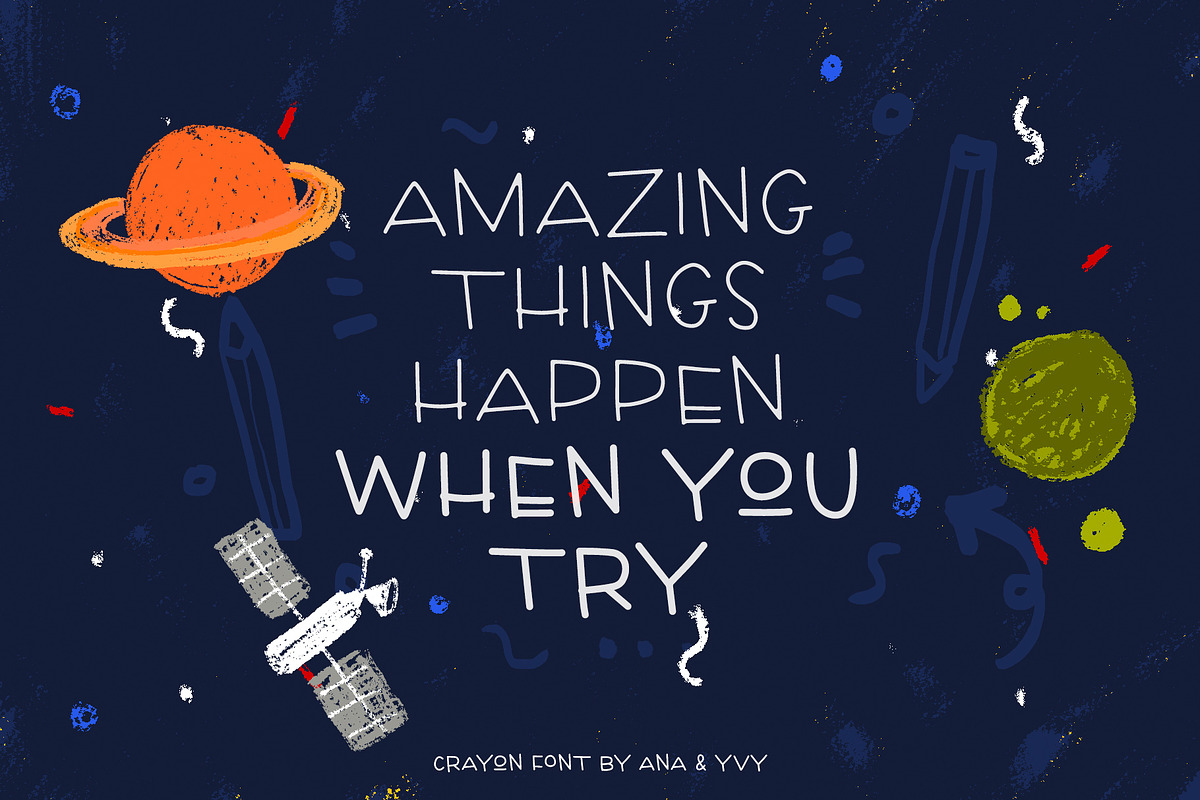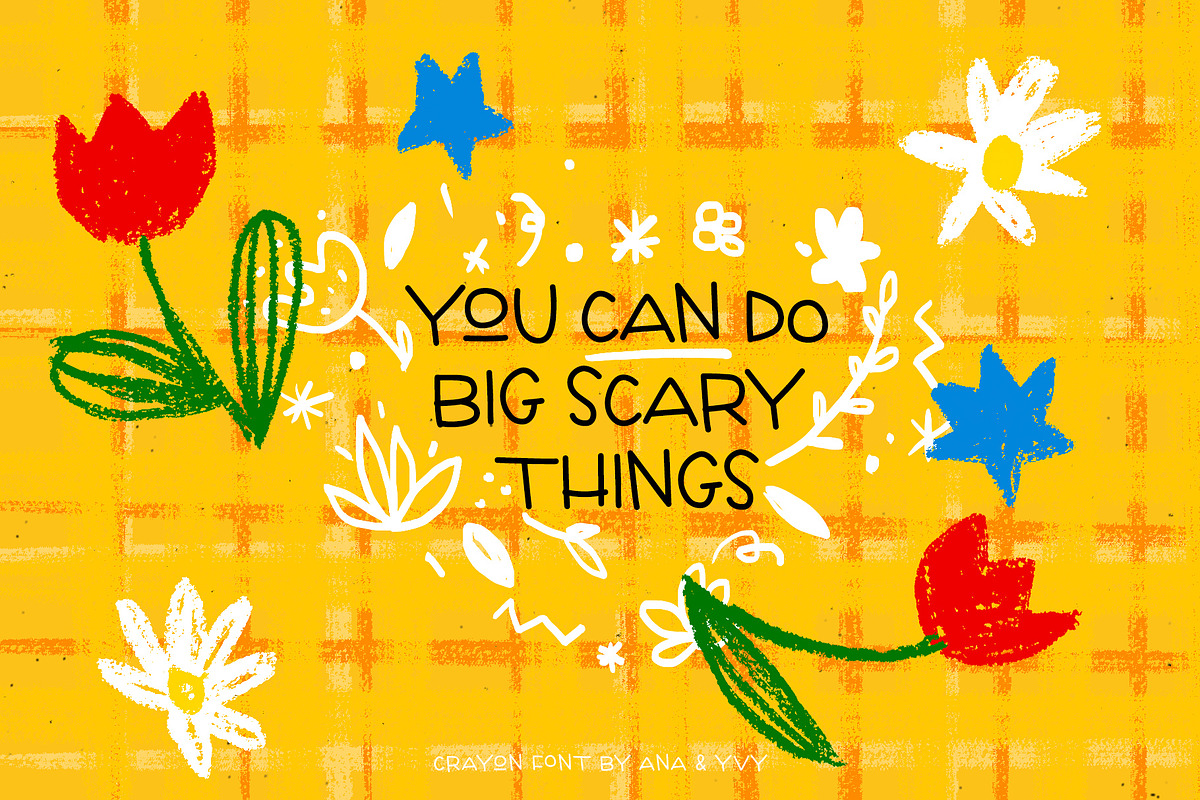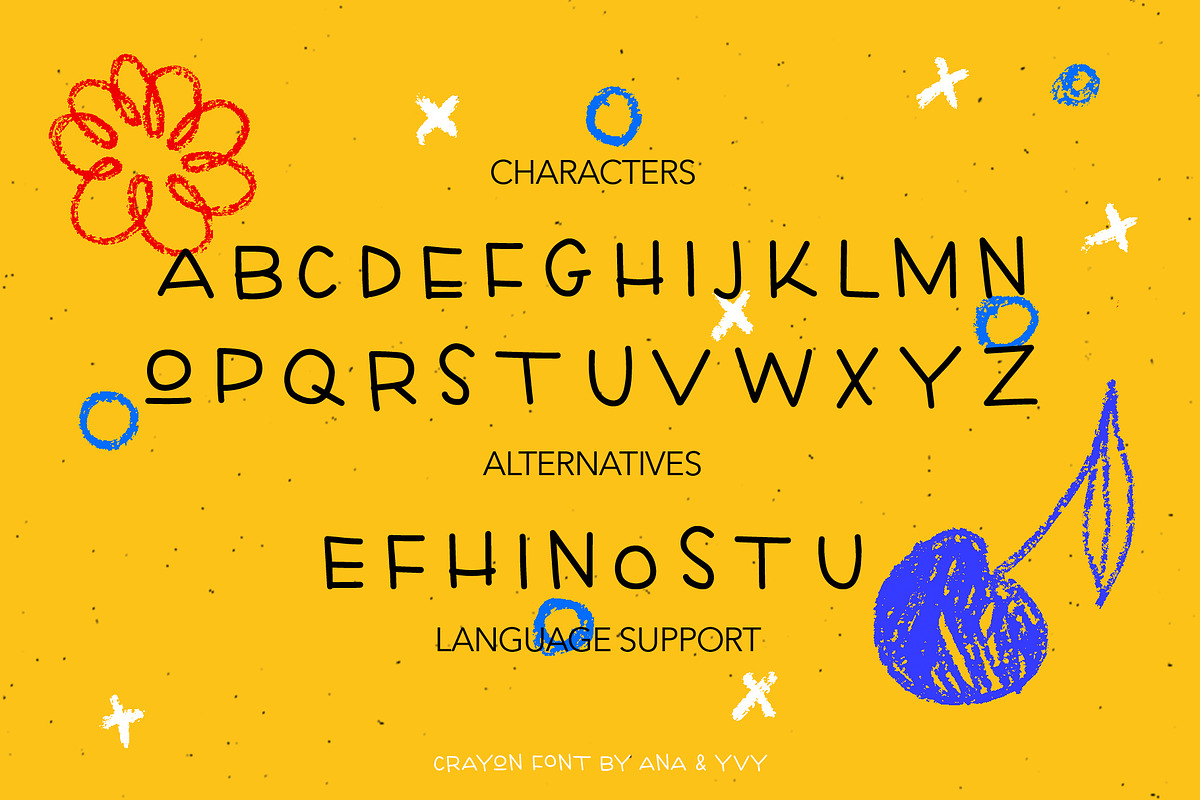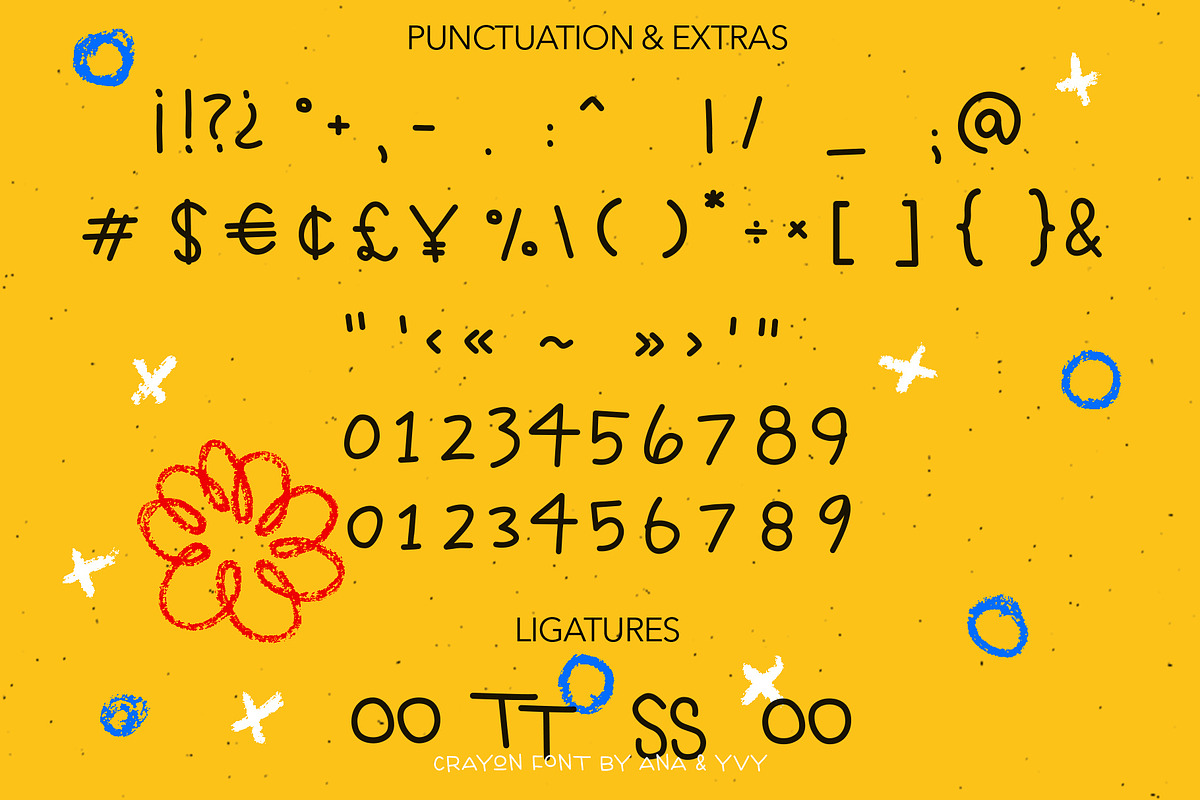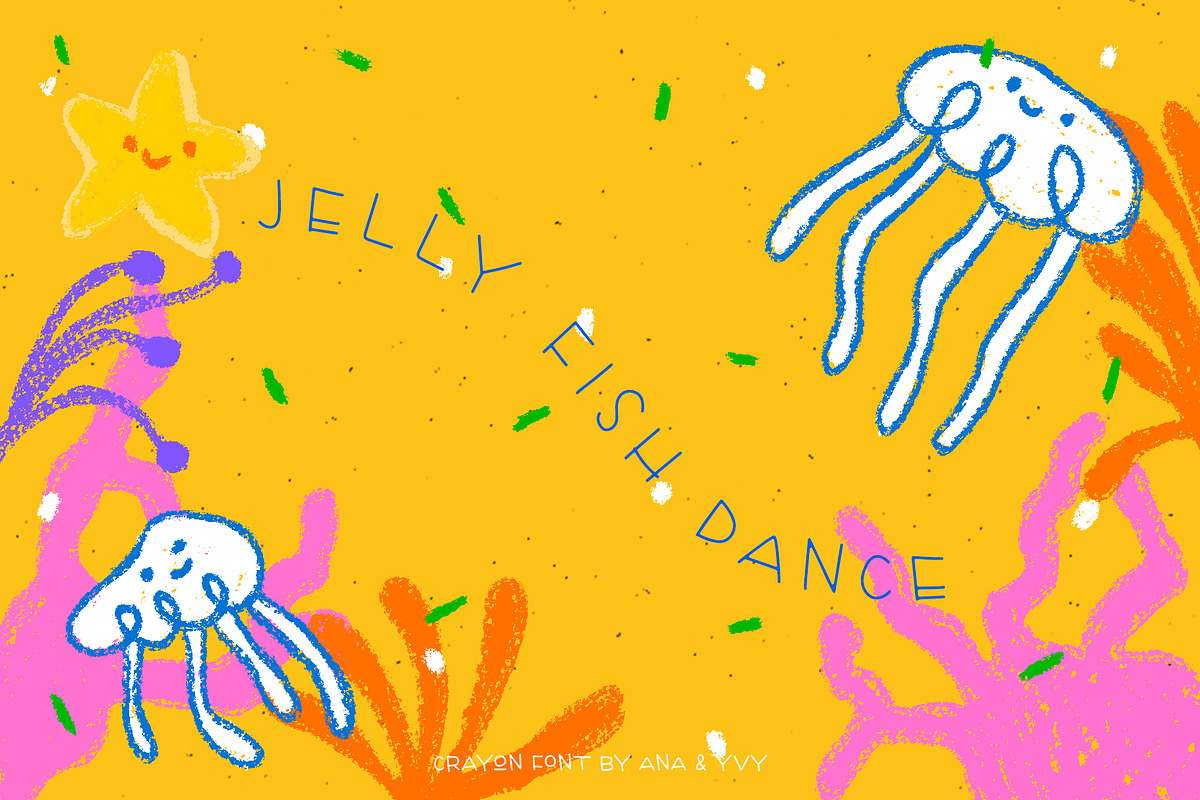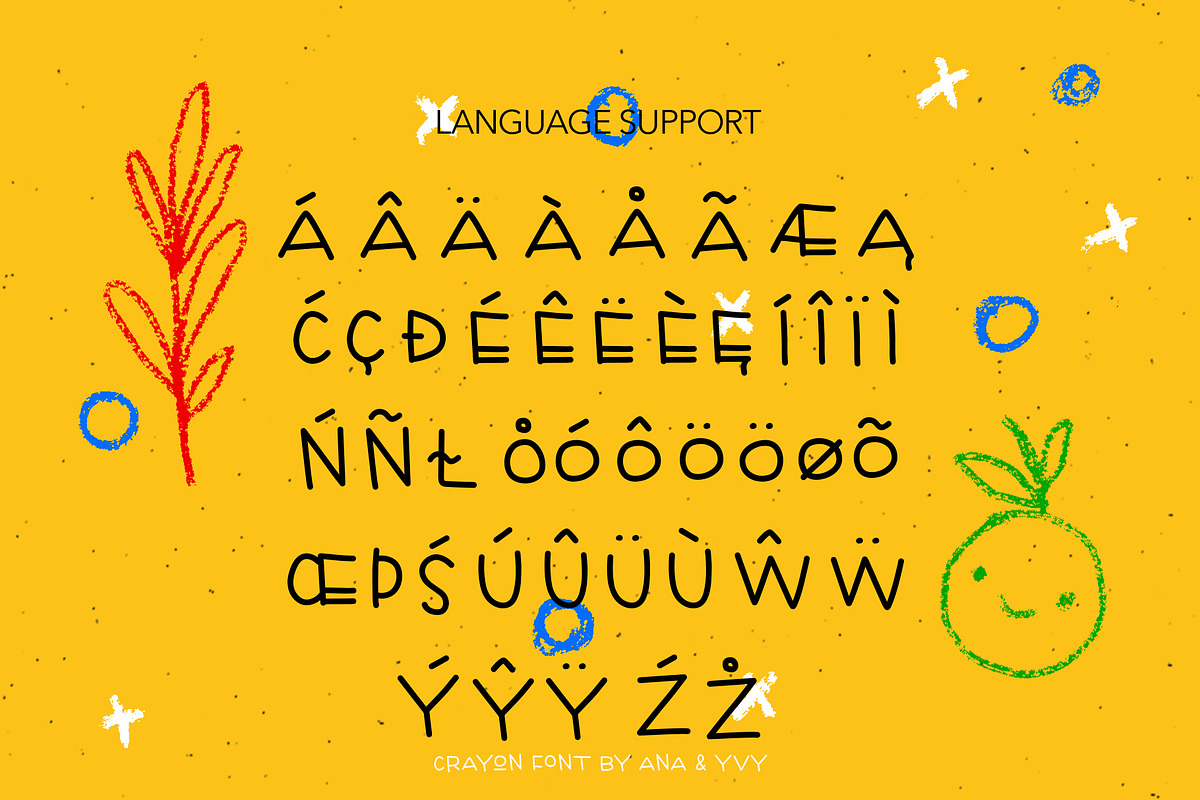
Crayon - handwritten playful font
Crayon is an uppercase handmade playful and round font for fun design projects like comic artworks, children invitations, kids party and much more!
- The font includes different language support and special characters.
Crayon - handwritten playful font by ana & yvy fits naturally into Branding, posters, packaging, typography.